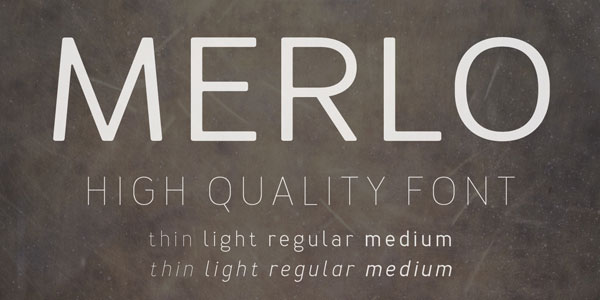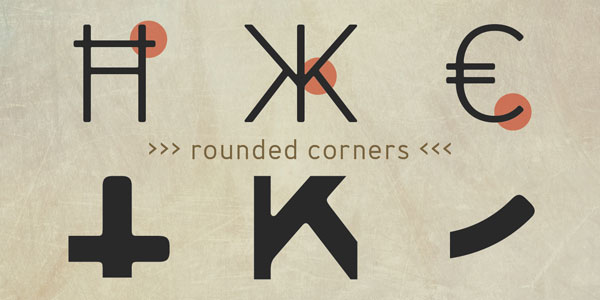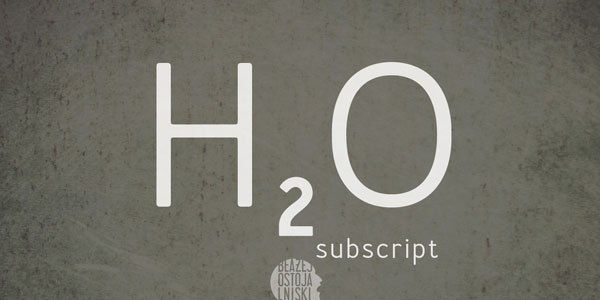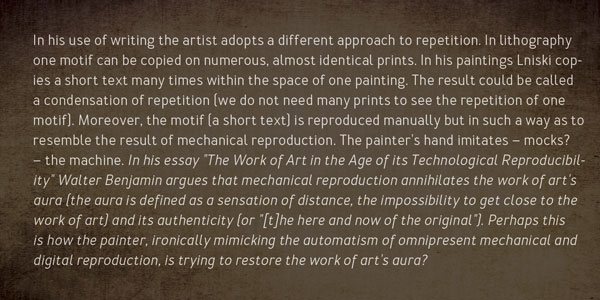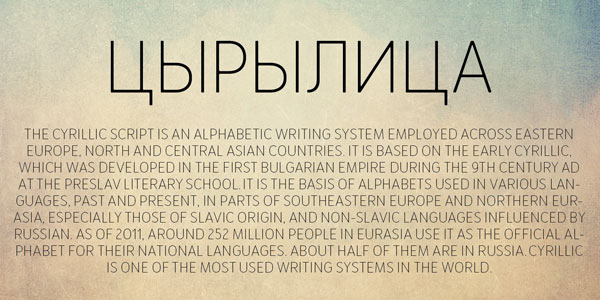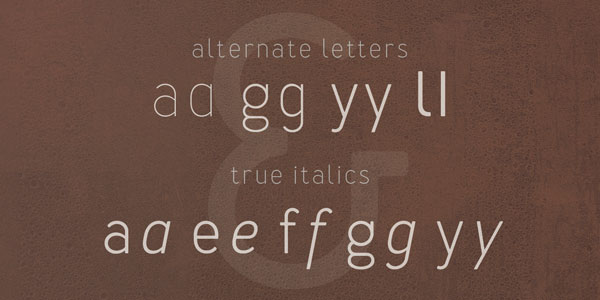
Merlo, a high quality font family from Błażej Ostoja Lniski.
The Merlo font is the younger sister of the Cervo typeface. Merlo’s complete family comprises 4 weights plus matching italics for each weight. The family has been designed in 2014 by Błażej Ostoja Lniski, a Polish artist and designer specializing in painting and lithography.
The typeface is characterized by rounded corners along with straight geometry and an accurate kerning, which ensures great legibility also in long and small texts. The character set supports Western European and Central European languages as well as Baltic, Turkish, Romanian, and Cyrillic letters. Merlo also includes alternate letters and true italics.